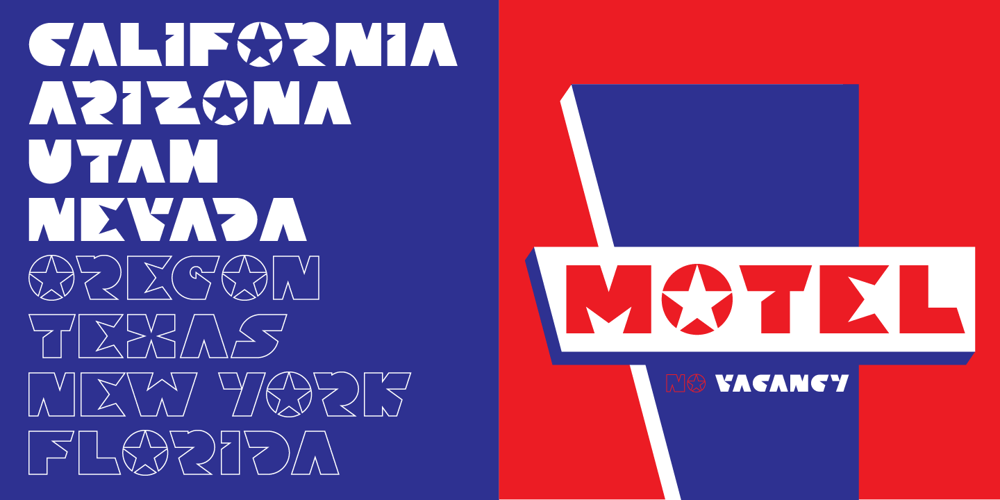
Stars And Type
Stars And Type font
Stars And Type Font Family was designed by Tim Kirkman and published by Tim Kirkman. Stars And Type contains 1 styles and family package options. Stars & Type is a display font inspired by a road trip around the USA. It is bold, abstract and experimental and is meant for attention grabbing large headlines. Utilising stars to give a sense of Americana, it would be suited to editorial, advertising and display typography.